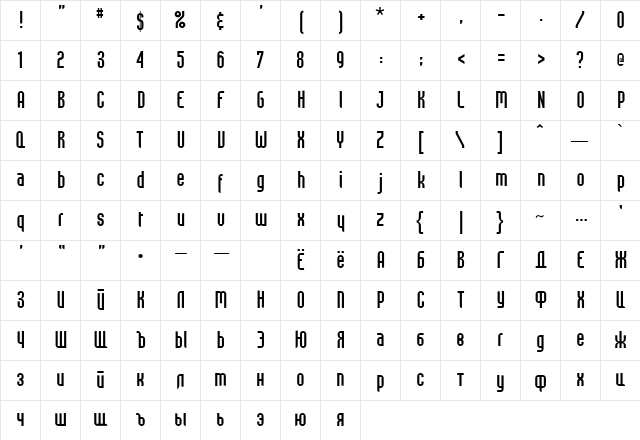
Complete Beast vs SpreadTall Regular glyph index. Displaying only characters natively supported by Beast vs SpreadTall Regular font.
Beast vs SpreadTall is a composed and adaptable typeface that performs quietly and consistently across a wide range of design contexts.
Pro Tip: Use Beast vs SpreadTall in both headline and body roles to test its range before committing to a single application.